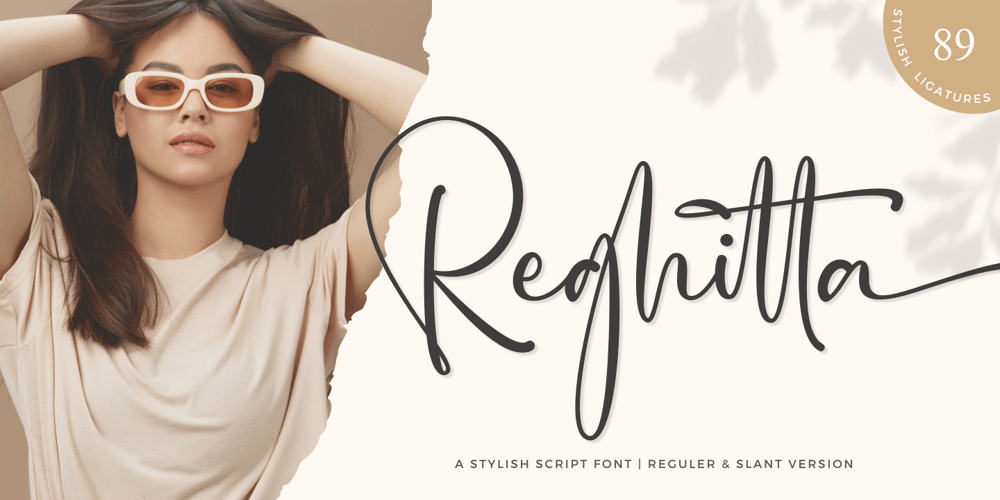
Reghitta Font Family was designed by Ainun Jinan and published by Jinan Studio. Reghitta contains 2 styles and family package options. Hello World,Introducing, Reghitta! is a stylish script font with 89 stylish ligatures that exudes elegance and charm. Its versatility makes it an excellent choice for various design purposes, including weddings, branding, social media post, quotes, prints, and more. No matter the project, Reghitta will elevate your designs to the next level, leaving a lasting impression on anyone who lays eyes on them.Features A set of uppercase and lowercase glyphs Number, symbol, and punctuation Multilingual Support Alternates Ligatures Swash Slant Version Thank you a million times for buying and using this font for your projects. Enjoy this font and happy creating!Jinan Studio